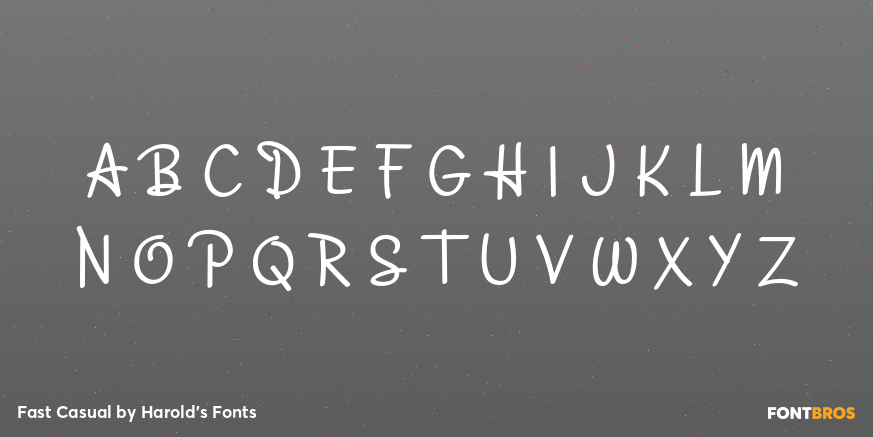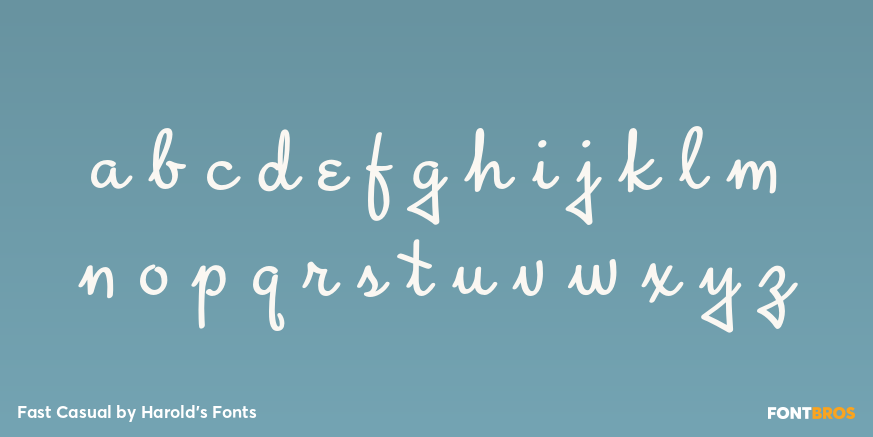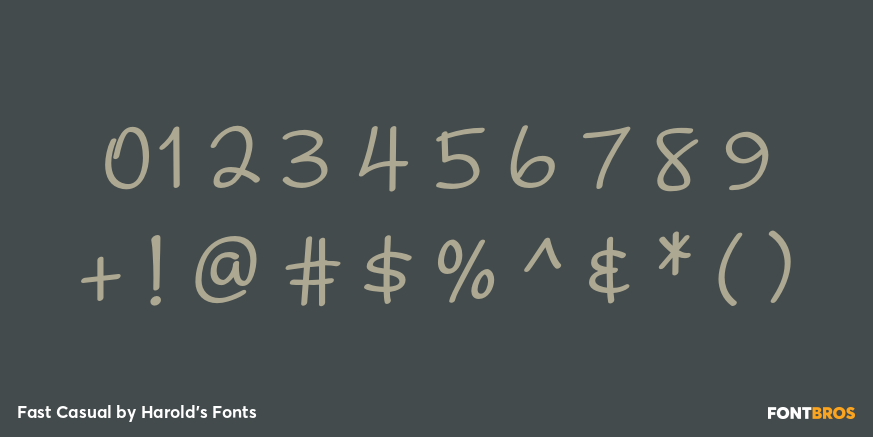
Fast Casual
Font Family by Harold's Fonts
FAST CASUAL looks like the cursive handwriting of a smart and creative individual who takes pride in their writing, but they also includes many quirky touches to show their personality. Fast Casual was inspired by the hand-lettered titles of the trailer of the 1940 Bette Davis film "The Letter". I've kept many of the quirks—the triangular descenders, the epsilon e's, the diagonal crossbars—while modernizing and harmonizing it altogether.